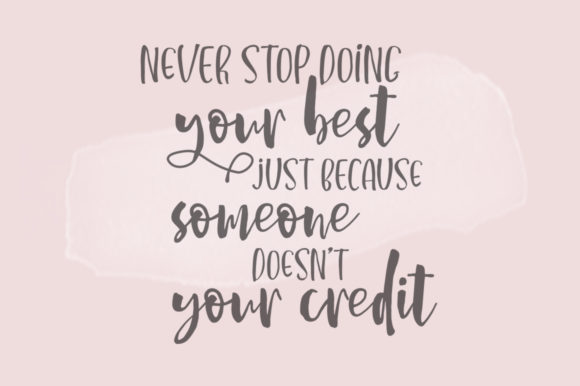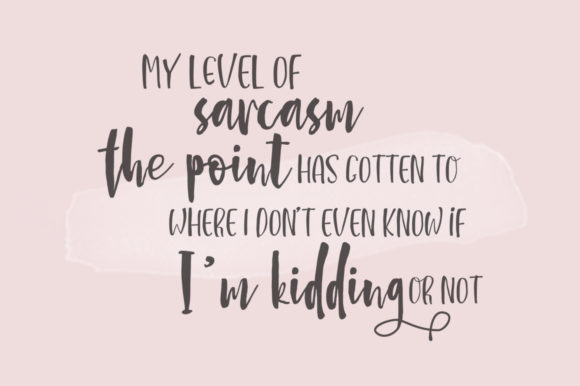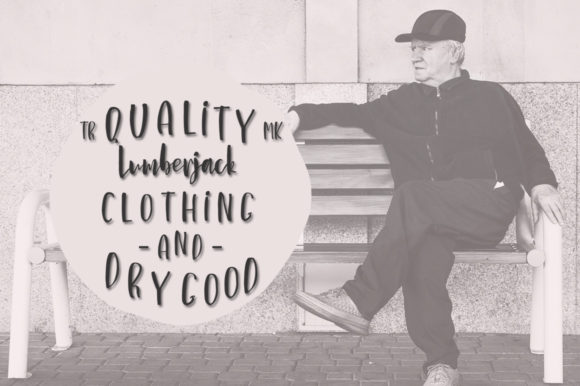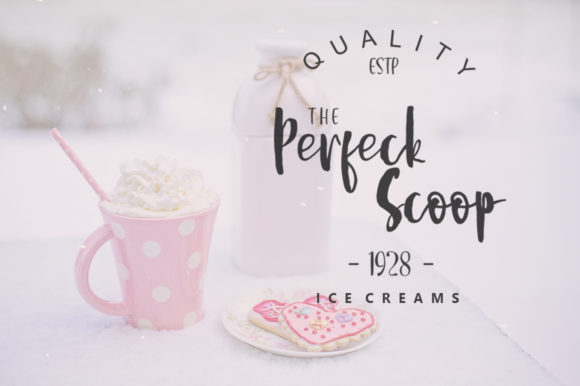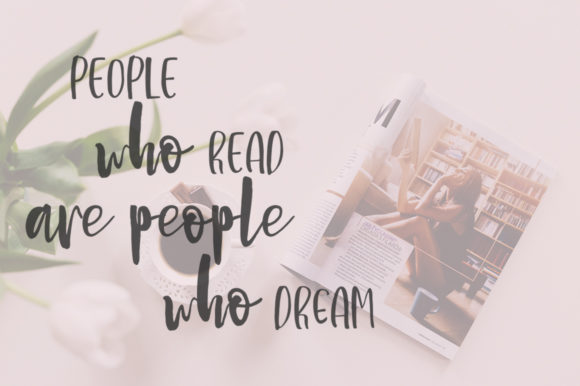
When Handwritten Beauty Meets Design
Remember that moment when you stumbled upon a beautiful handwritten note from a loved one? The way the ink flowed, the imperfections, and the genuine touch all came together to create a piece of art that touched your heart. That’s exactly what the Hello Beauty Font aims to capture – the authentic charm of handwritten beauty in a digital format.
This stunning font is perfect for designers looking to add a personal touch to their projects. With its irregular baseline, Hello Beauty Font brings a unique and organic feel to any design. Whether you’re working on a branding project, a wedding invitation, or a social media campaign, this font is sure to inspire creativity and add a touch of elegance to your work.
Hello Beauty Font Key Features
- Font Family: Hello Beauty is a beautiful, elegant script font that includes a variety of styles and weights.
- Font Size: Hello Beauty is available in a range of sizes, from 12pt to 72pt, making it suitable for various design applications.
- Resolution: Designed to be high-resolution, Hello Beauty is suitable for print and digital applications, including logos, packaging, and signage.
- Unique Characteristics: Features a flowing, cursive script with subtle flair and elegance, making it perfect for adding a touch of sophistication to designs.
- Language Support: Supports a wide range of languages, including Latin, Cyrillic, and Greek alphabets, making it a versatile font for international designs.
Hello Beauty Font Review
I recently had the chance to work with the Hello Beauty Font, and I must say it’s a mixed bag. ✨ On the plus side, the font’s aesthetic is undeniably beautiful. The elegant curves and feminine touch make it perfect for beauty and fashion brands. It’s also highly legible, even at smaller font sizes.
- ✨ Elegant and feminine design
- ✨ Highly legible
- ✨ Perfect for beauty and fashion brands
However, I did encounter a few limitations ⚠️. The font’s versatility is somewhat limited, as it’s best suited for certain niches. Additionally, the font family is relatively small, which may not be ideal for projects that require multiple font styles.
- ⚠️ Limited versatility
- ⚠️ Small font family
Overall, I’d say the Hello Beauty Font is a great choice for beauty and fashion brands looking to add a touch of elegance to their visual identity. However, it may not be the best fit for projects that require a more versatile or extensive font family.
Practical Application Guide: Hello Beauty Font
The Hello Beauty Font is ideal for creative projects such as:
– Beauty and fashion branding
– Lifestyle and wellness marketing
– Social media graphics and captions
– Wedding and event invitations
To get the most out of the Hello Beauty Font, experiment with different font sizes, colors, and styles to create visually appealing typography. Combine the font with other design elements to create a cohesive and engaging design.
Alternatives to Hello Beauty Font
Great Vibes Font is a beautiful script font that is perfect for adding a touch of elegance to your designs. It is ideal for use in invitations, wedding designs, and other creative projects. Compared to Hello Beauty Font, Great Vibes Font has a more relaxed and casual feel, making it suitable for a wider range of applications.
Carolyna Pro Font is a modern script font that is designed for use in fashion, beauty, and lifestyle branding. It is perfect for creating a luxurious and sophisticated look, making it ideal for high-end fashion brands and beauty companies. Unlike Hello Beauty Font, Carolyna Pro Font has a more refined and polished feel, making it suitable for use in professional settings.
Alex Brush Font is a elegant script font that is perfect for use in creative projects, such as book covers, magazine designs, and website headers. It is ideal for adding a touch of sophistication and elegance to your designs, making it suitable for use in a wide range of applications. Compared to Hello Beauty Font, Alex Brush Font has a more refined and sophisticated feel, making it suitable for use in more formal settings.